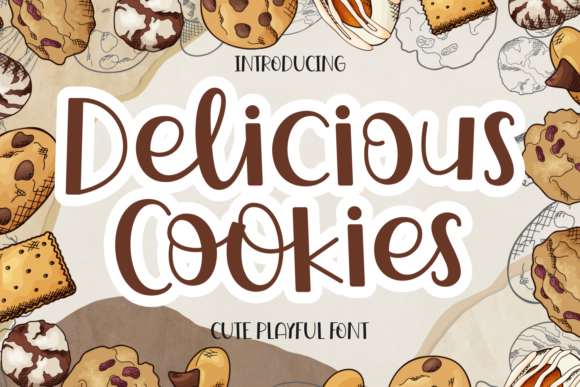
Delicious Cookies: A Quirky Font for Creative Projects
When it comes to branding and design, the right font can make all the difference. Delicious Cookies is a display font that brings a unique blend of charm and personality to any project. With its playful yet sophisticated style, this font is ideal for those looking to add a touch of fun and creativity to their work. Whether you're designing a logo, creating t-shirt graphics, or developing packaging for a product, Delicious Cookies offers a fresh and distinctive look that stands out from the crowd.
What Makes Delicious Cookies Unique?
Delicious Cookies is more than just a font—it's a statement. Its design features a mix of rounded edges and whimsical details that give it a friendly, approachable feel. This font is perfect for projects that aim to convey a sense of joy, creativity, or nostalgia. Unlike more traditional fonts, which often prioritize clarity over flair, Delicious Cookies embraces a more expressive style that can capture attention and evoke emotion.
The font's name itself suggests a sense of indulgence and delight, which aligns with its visual characteristics. Each letter is crafted with care, making it suitable for both digital and print applications. Its versatility allows it to be used in a wide range of contexts, from casual designs to more formal branding efforts.
Key Features of Delicious Cookies
- Quirky Design: The font’s unique shapes and curves give it a one-of-a-kind appearance that sets it apart from other display fonts.
- High Readability: Despite its stylized look, Delicious Cookies remains legible even at smaller sizes, making it practical for various uses.
- Flexibility: It works well in both short phrases and longer text, offering a balance between artistic expression and usability.
- Emotional Appeal: The font's playful nature can help convey a brand's personality, whether it's fun, nostalgic, or innovative.
Where Can You Use Delicious Cookies?
Delicious Cookies is best suited for creative and branded projects where a distinctive visual identity is important. Here are some common applications:
- Logos: Use Delicious Cookies to create a memorable and eye-catching logo for a business, product, or service. Its quirky style can help differentiate your brand from competitors.
- T-Shirt Printing: Add a fun and stylish element to clothing by incorporating this font into t-shirt designs. It’s especially popular among indie brands and boutique shops.
- Product Packaging: For food-related businesses, such as bakeries or snack companies, Delicious Cookies can enhance the visual appeal of packaging and marketing materials.
- Marketing Materials: From social media posts to flyers and posters, this font can add a touch of personality to promotional content.
- Web Design: Incorporate Delicious Cookies into website headers, banners, or call-to-action buttons to create a visually engaging user experience.
Who Benefits from Using Delicious Cookies?
Delicious Cookies is ideal for a variety of users, including:
- Business Owners: Those looking to build a strong brand identity can use this font to create a unique and recognizable visual presence.
- Graphic Designers: Professionals seeking to add a creative edge to their work will find Delicious Cookies to be a valuable addition to their font library.
- Artists and Creators: Individuals involved in digital art, illustration, or handmade crafts can use this font to enhance their creative projects.
- Students and Educators: For school projects, presentations, or classroom materials, Delicious Cookies can bring a fun and engaging visual style.
Strengths and Considerations
One of the main strengths of Delicious Cookies is its ability to add character and personality to any design. It’s particularly effective when used in small doses, such as headlines or captions, rather than long blocks of text. However, because of its stylized nature, it may not be the best choice for body text or large paragraphs, where readability is paramount.
Another consideration is the font’s suitability for different audiences. While its playful style may resonate well with younger demographics or niche markets, it may not be appropriate for more formal or professional settings. Users should also ensure that the font is properly licensed for commercial use, depending on their intended application.
Real-World Applications
Let’s explore a few examples of how Delicious Cookies can be used in practice:
- Food Branding: A bakery might use Delicious Cookies in its logo to reflect the sweet and indulgent nature of its products. This can help create a strong visual connection with customers.
- Celebration Invitations: For events like weddings, birthdays, or parties, this font can add a festive and whimsical touch to invitations and decorations.
- Children’s Products: Companies selling toys, books, or educational materials for kids can benefit from the font’s friendly and engaging look.
- Readability: Test the font at different sizes and in different formats to ensure it remains clear and easy to read.
- Brand Identity: Ensure that the font complements your overall brand image and doesn’t clash with other design elements.
By taking these factors into account, you can make an informed decision about whether Delicious Cookies is the right choice for your needs. Remember, the goal is to enhance your message and connect with your audience, not to overwhelm them with style.